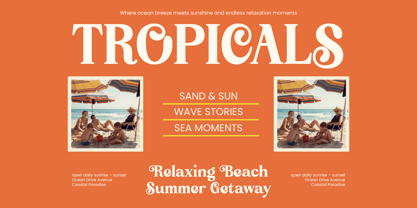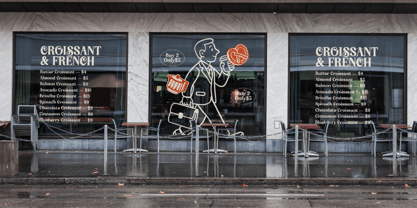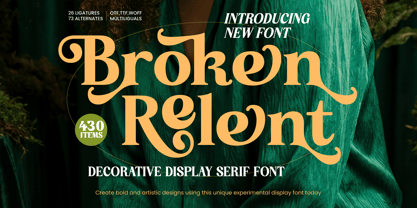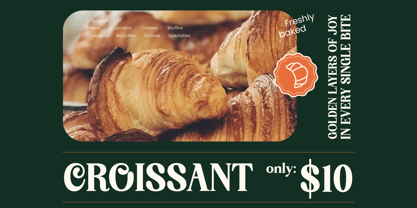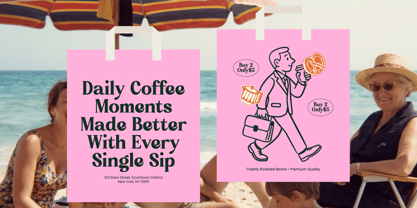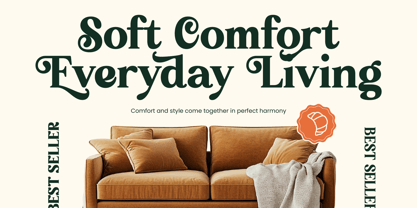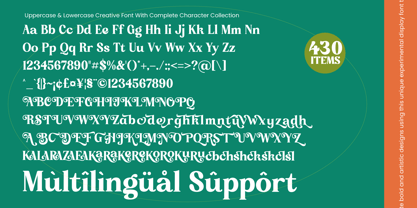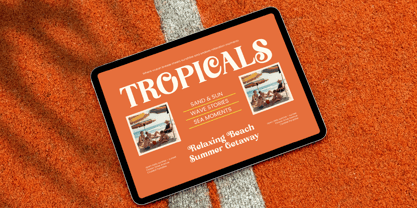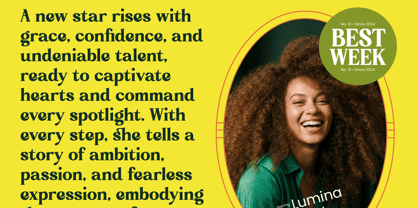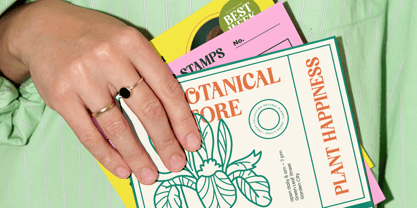
Broken Relent
by Timelesstype Studio
The Broken Relent Font Family was designed by Heru Utama Putra and published by Timelesstype Studio. Broken Relent contains 2 styles and family package options. More about this family
Broken Relent - Decorative Display Serif Font. This experimental display face masterfully blends vintage Art Nouveau influences with modern sophistication, resulting in a high-contrast typeface that commands immediate attention. Its fluid, sweeping curves and bold strokes are designed to infuse any project with a sense of artistic flair and luxury branding excellence, ensuring your message is delivered with unrivaled character and visual impact. Versatility is at the heart of Broken Relent - Decorative Display Serif Font, providing designers with an expansive toolkit of 430 total items. Featuring 26 unique ligatures and 73 stylistic alternates, this font allows for a highly customized typographic experience. Whether you are crafting a bespoke logotype or an expressive headline, these decorative elements ensure that every word feels hand-crafted and perfectly balanced for professional-grade design and high-end aesthetics.